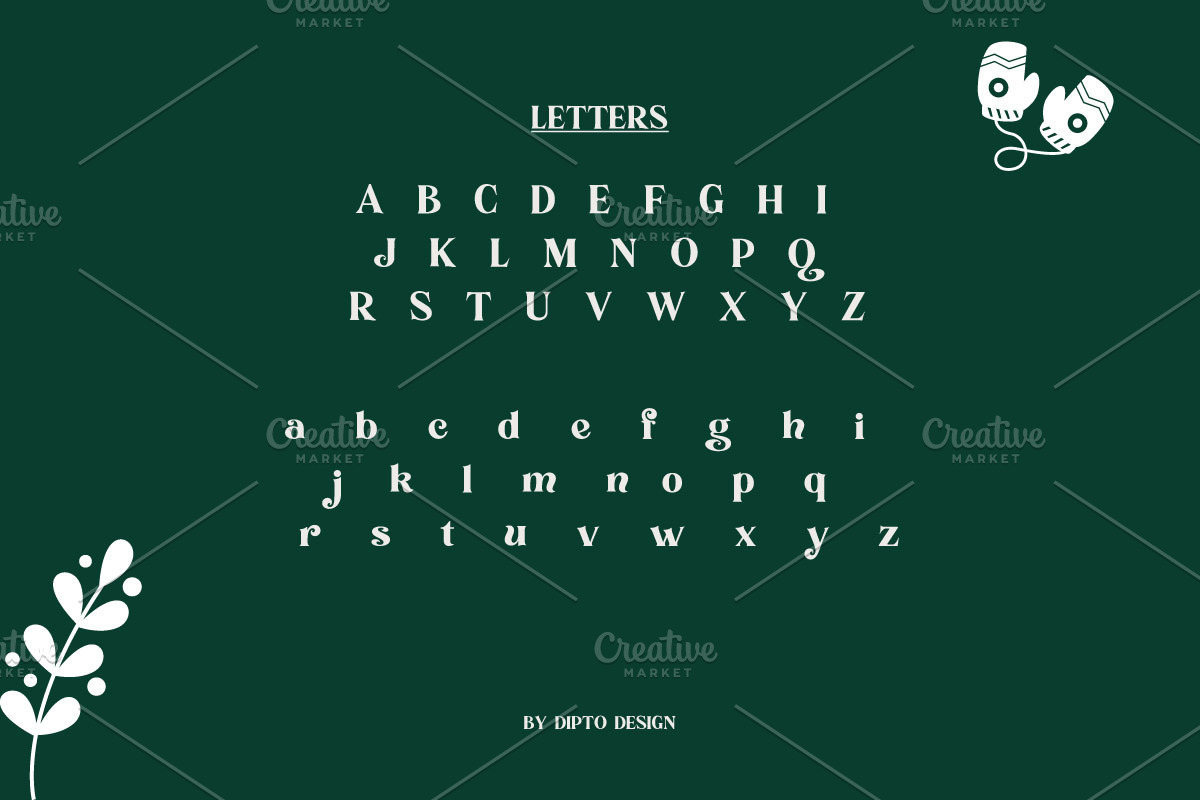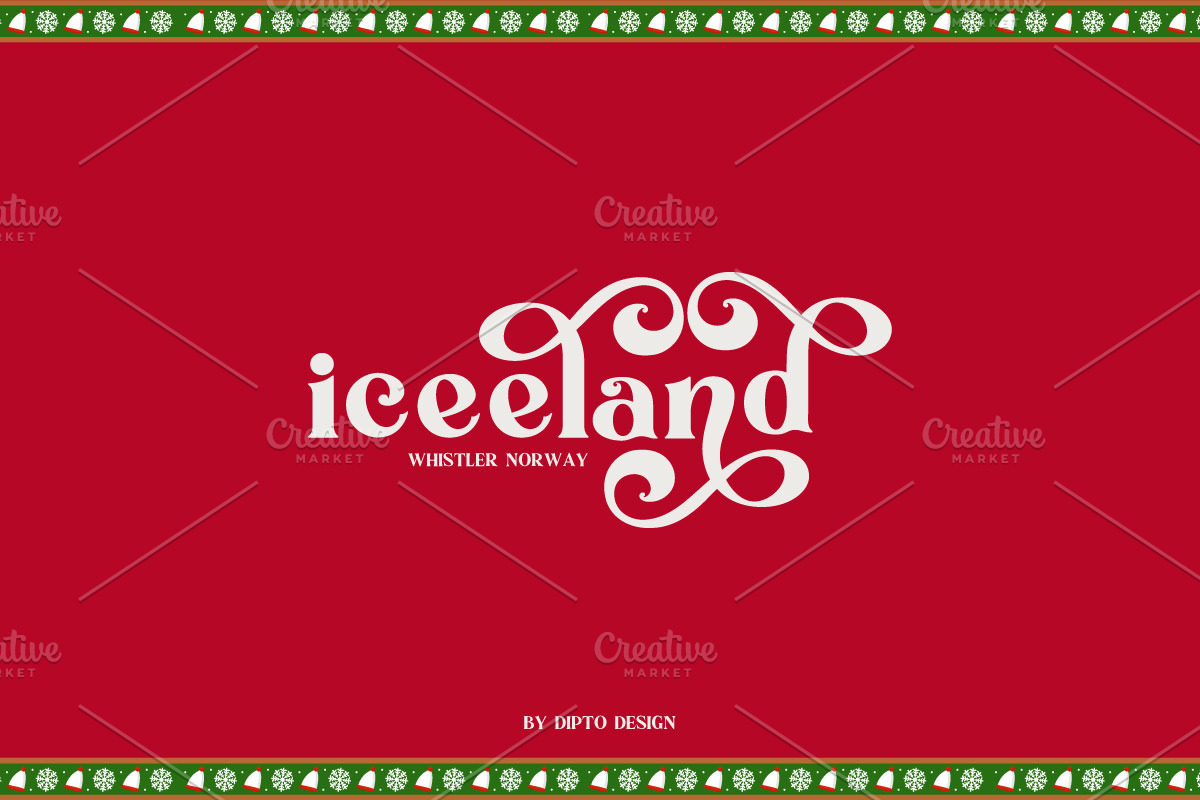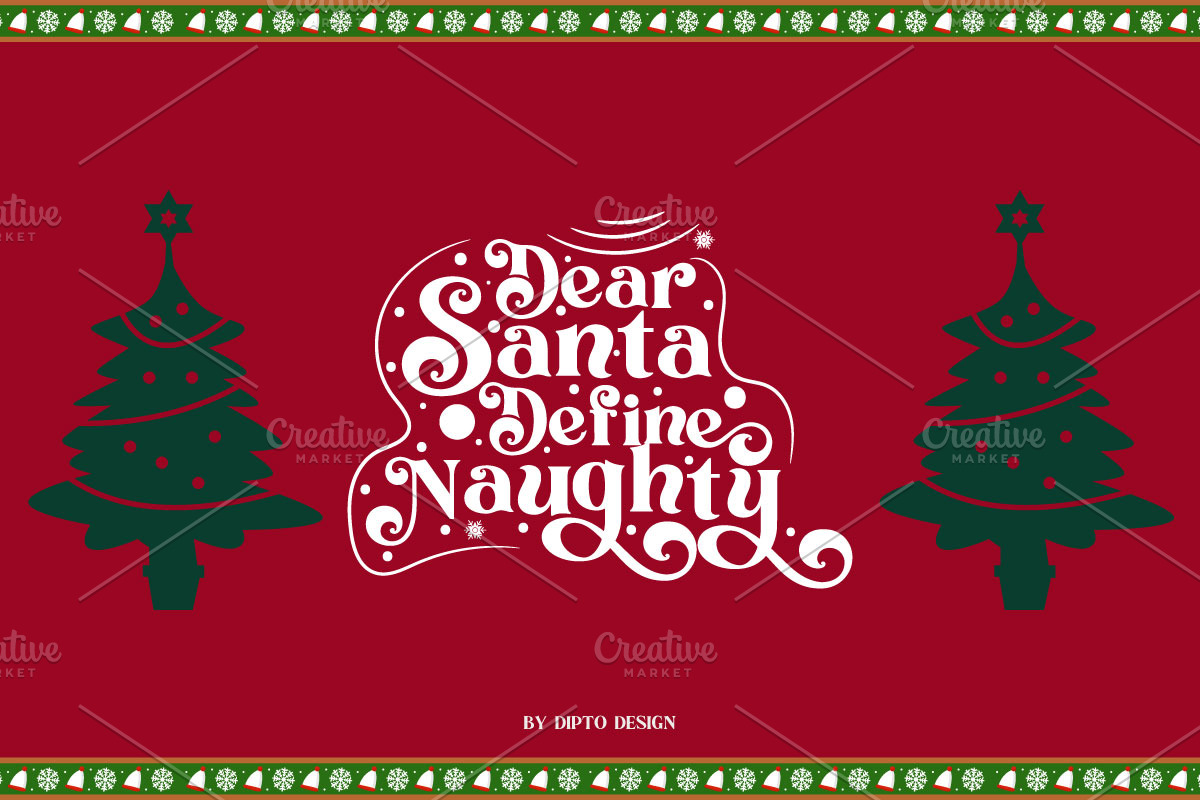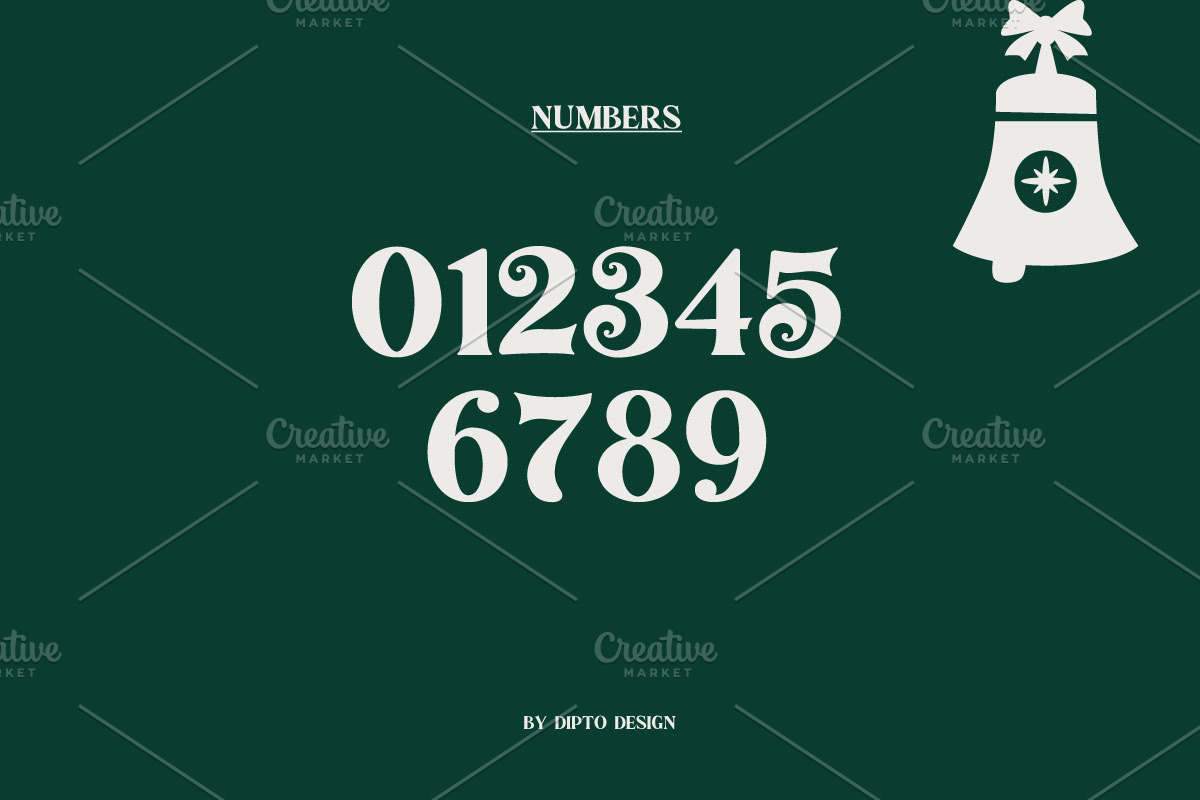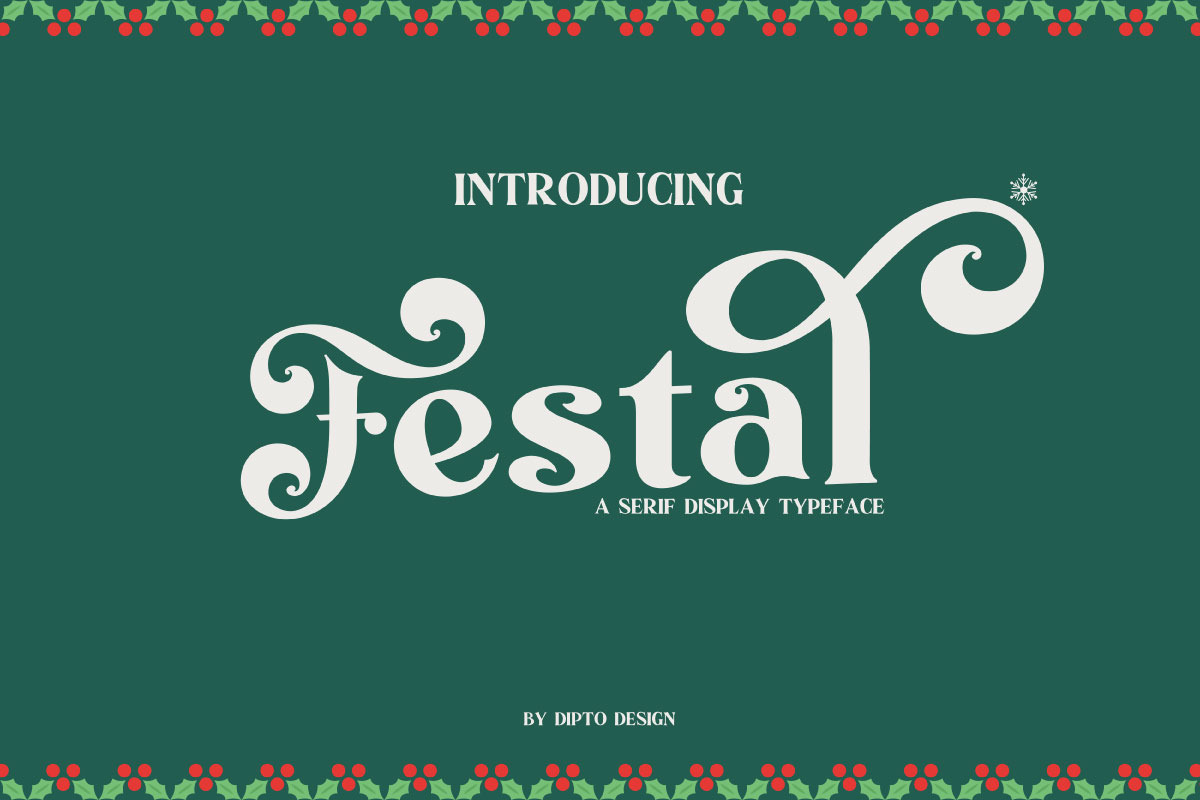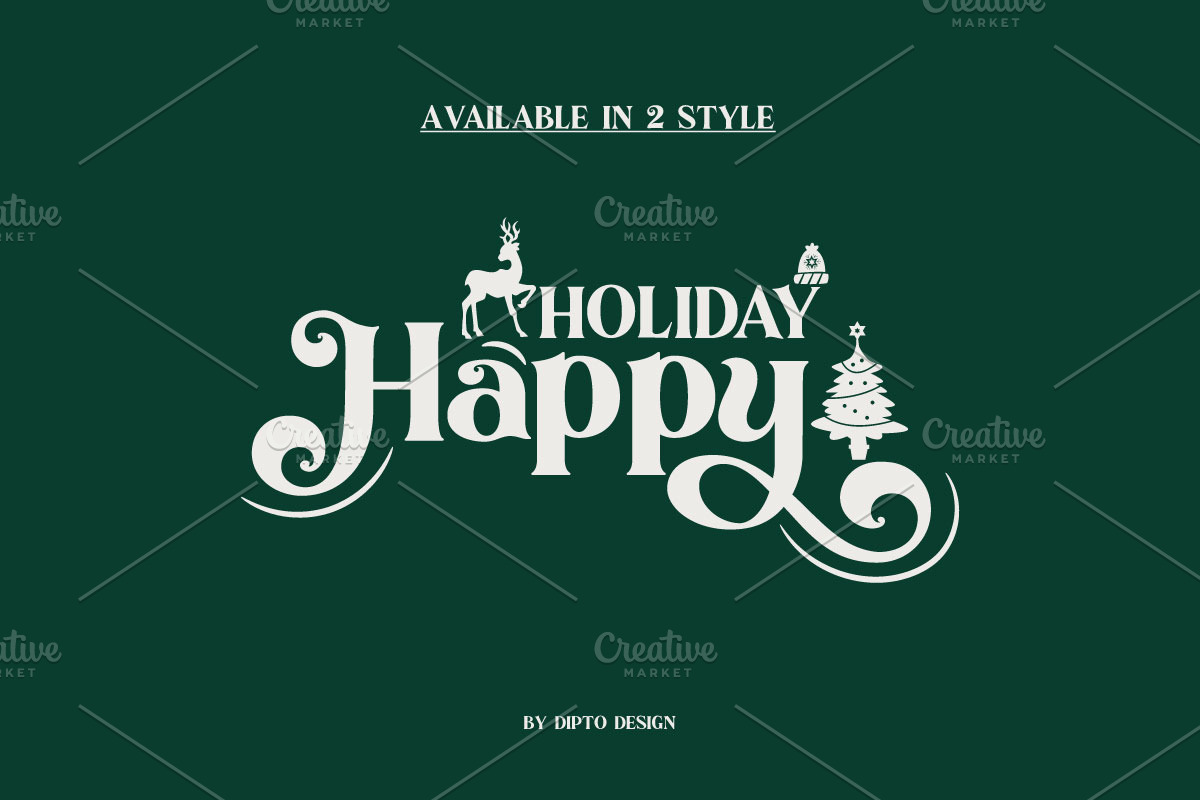
Festal-Christmas Typeface
As the ambient temperature gracefully descends, ushering in the anticipation of festive Christmas endeavors, a moment of celebration is warranted. Festal emerges as an engaging and contemporary typeface tailored for the holiday season, seamlessly aligning with the spirit of sleigh rides and carol singing.
This versatile typeface incorporates essential components, encompassing numerals, punctuation, and a comprehensive set of multilingual characters. Additionally, including ligatures enhances the typographic possibilities, catering to the diverse range of creative expressions your imagination may evoke.
This font is perfect for Christmas quotes, products, social media, and more!! Be creative and have fun with this amazing font.
- Alternate, Ligature and Swash